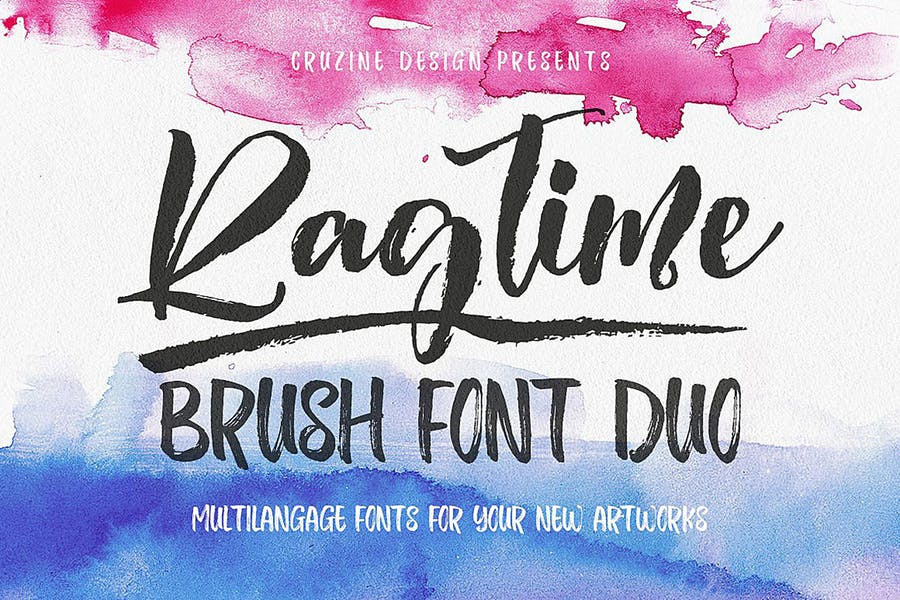
Ragtime - Brush Font Duo
Ragtime - Brush Font Duo creates excitement because it masterfully captures the syncopated rhythm and spirited elegance of ragtime music with its perfectly paired typefaces that embody both musical energy and vintage sophistication. The font duo's complementary styles instantly convey musical heritage and cultural authenticity, making any brand appear rhythmically inspired and genuinely connected to American musical tradition. Its carefully balanced contrast between musical movement and vintage refinement creates an immediate sense of ragtime authenticity that resonates with audiences seeking musical experiences, vintage quality, and products that celebrate the transformative beauty of ragtime music and early American entertainment culture.
The Ragtime - Brush Font Duo family includes multiple weights and styles across both fonts: Brush, Sans, Regular, Bold, Light, Medium, Italic, Syncopated, Condensed, and Musical versions. Each variant maintains the duo's signature ragtime character while offering comprehensive design flexibility for musical brand systems requiring both rhythmic energy and vintage sophistication.